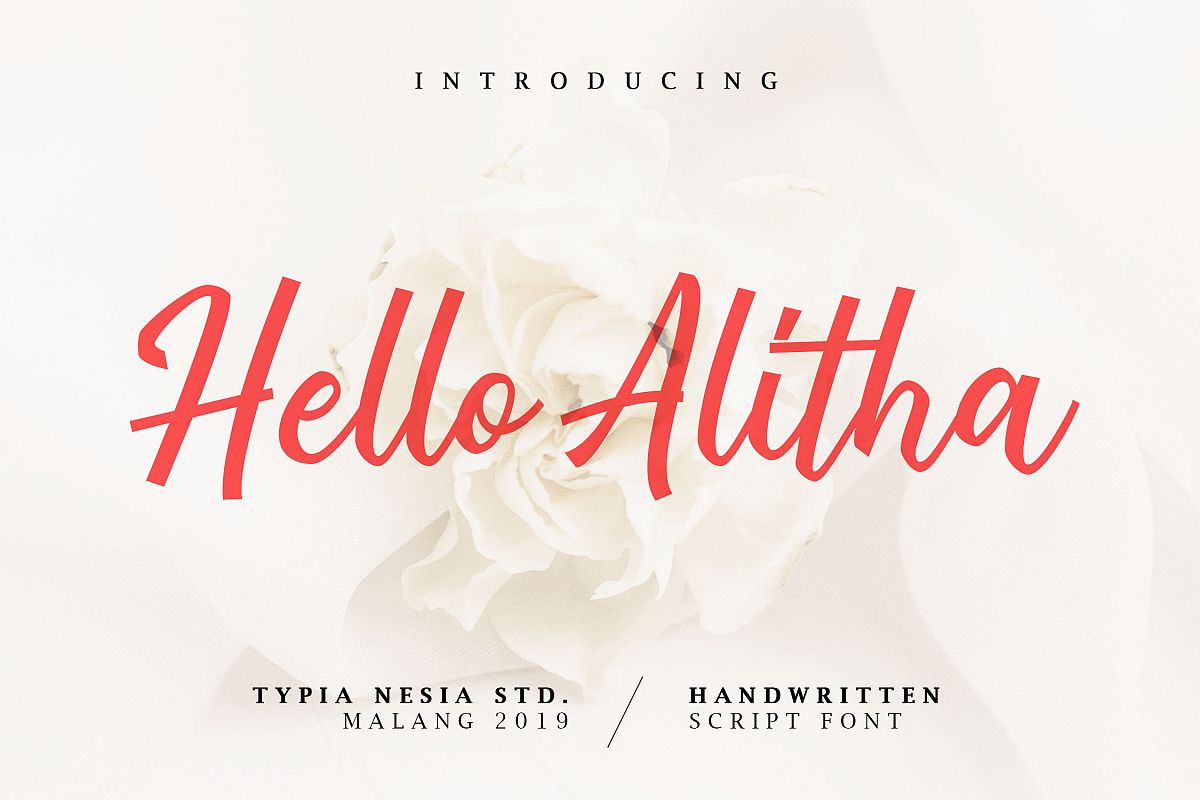
Hello Alitha is a Romantic Modern Calligraphy Script Font.
The imperfect flow and easy handwritten style works perfectly on invitations, blog headers, branding, art quote, book / cover Title, and so much more!
Hello Alitha